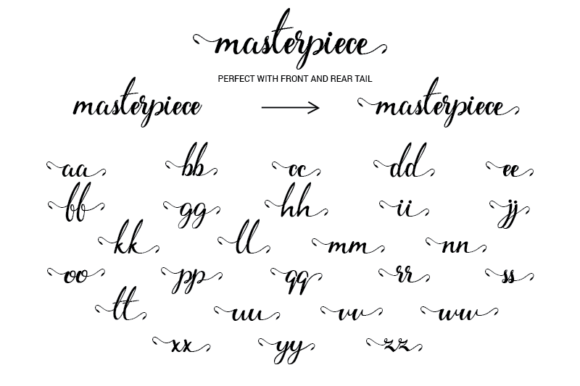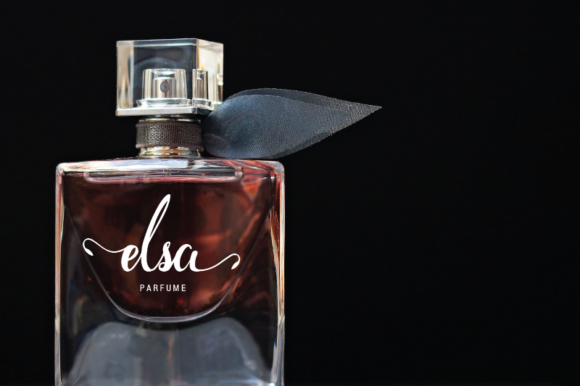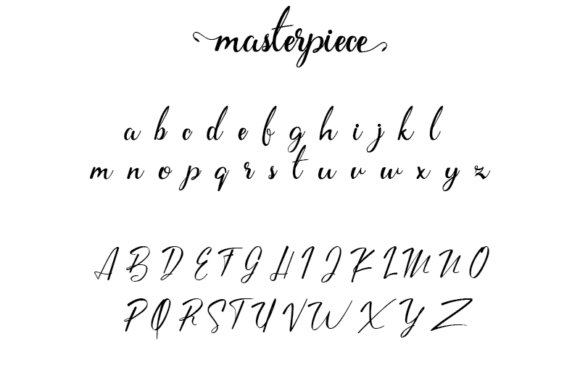
About Masterpiece Font
Masterpiece sounds like an exquisite and versatile handwritten font that can bring a timeless and elegant touch to a wide range of designs. With its flowing and sophisticated style, it has the potential to elevate creative projects and make them truly standout. Here are some inspiring ideas on how to use Masterpiece to create stunning and captivating designs:
1. Wedding Invitations: Use Masterpiece to design elegant and romantic wedding invitations, setting the tone for a special day with its flowing and sophisticated charm.
2. Stationery Art: Create beautiful and artistic stationery designs, such as letterheads, notecards, and envelopes, infused with Masterpiece’s timeless and effortless style.
3. Social Media Graphics: Apply Masterpiece in social media posts to create eye-catching graphics with a touch of elegance and sophistication.
4. Quote Posters: Design inspiring and motivational quote posters with Masterpiece, using its flowing and graceful feel to add a sense of refinement to the messages.
5. Blog Headers: Use Masterpiece in blog headers or banners to create a polished and visually appealing first impression for readers.
6. Greeting Cards: Design heartfelt and personalized greeting cards with Masterpiece, making each card feel like a work of art.
7. Personal Journaling: Apply Masterpiece in personal journals or diaries to bring a sense of elegance and beauty to daily reflections.
8. Book Covers: Use Masterpiece to design book covers for a refined and captivating look, perfect for a variety of genres.
9. Custom Prints: Create custom prints and wall art with Masterpiece, adding a touch of sophistication and class to home decor.
10. Logo Design: Apply Masterpiece to create logos for brands seeking a timeless and elegant image.
11. Digital Marketing Materials: Use Masterpiece in digital marketing materials such as email templates, e-books, and infographics, creating a seamless and upscale brand experience.
12. Product Packaging: Design product labels or packaging with Masterpiece for a sophisticated and high-end look.
13. Event Posters: Apply Masterpiece in event posters or flyers to add a touch of refinement and appeal to a wide audience.
14. Beauty and Wellness Branding: Use Masterpiece in branding for beauty and wellness businesses, conveying a sense of luxury and grace.
15. Handmade Crafts: Apply Masterpiece in DIY craft projects like scrapbooking, card making, or creating gift tags, adding a touch of elegance and creativity.
16. Website Headers: Use Masterpiece in website headers to create a polished and inviting atmosphere for visitors.
17. Fashion Lookbooks: Apply Masterpiece in fashion lookbooks or catalogs to add a sophisticated and captivating touch to the overall presentation.
18. Inspirational Art Prints: Design art prints with meaningful messages using Masterpiece’s flowing and timeless style.
19. Calendars and Planners: Create calendars or planners with Masterpiece to add a sense of sophistication and organization to daily schedules.
20. Nature-Themed Designs: Use Masterpiece in designs with a nature-inspired theme, evoking a sense of natural beauty and elegance.
In conclusion, Masterpiece is a flowing and timeless handwritten font that can elevate a wide range of creative projects. Its versatile and sophisticated style makes it perfect for wedding invitations, stationery art, social media graphics, and much more. Embrace the elegance of Masterpiece and create captivating and refined designs that leave a lasting impression on your audience!